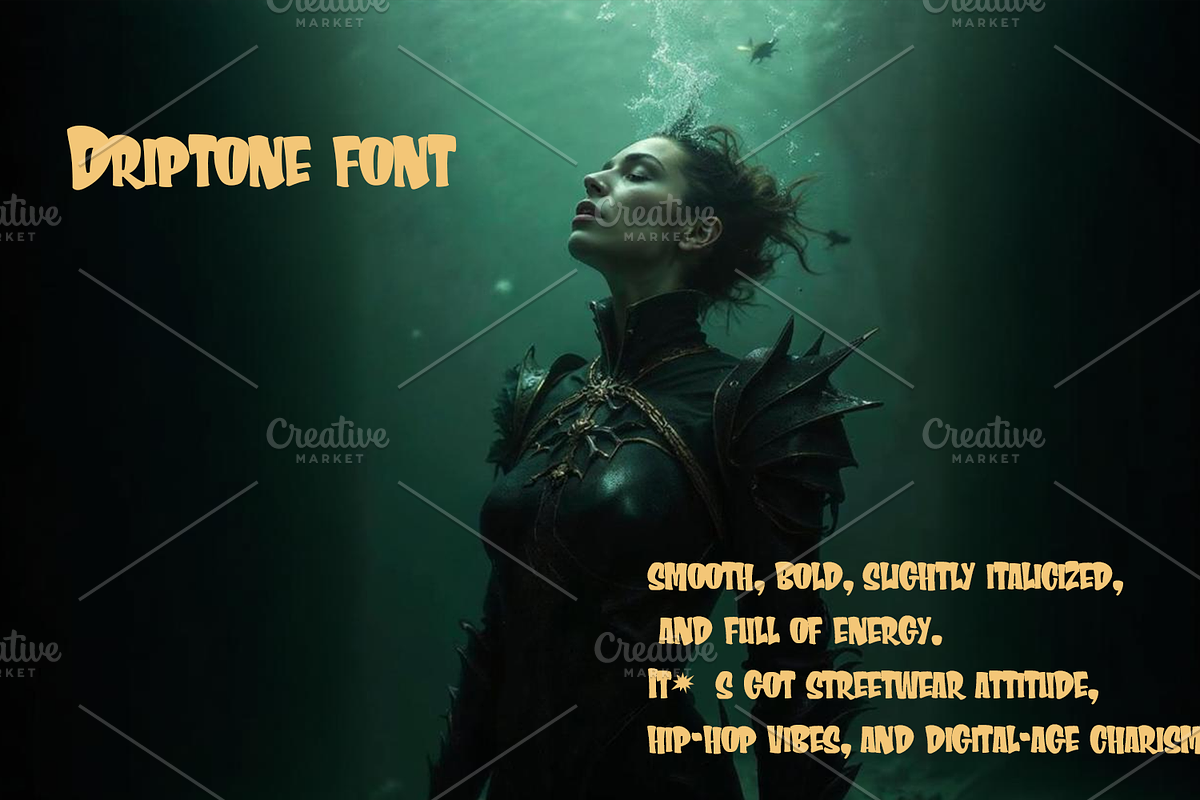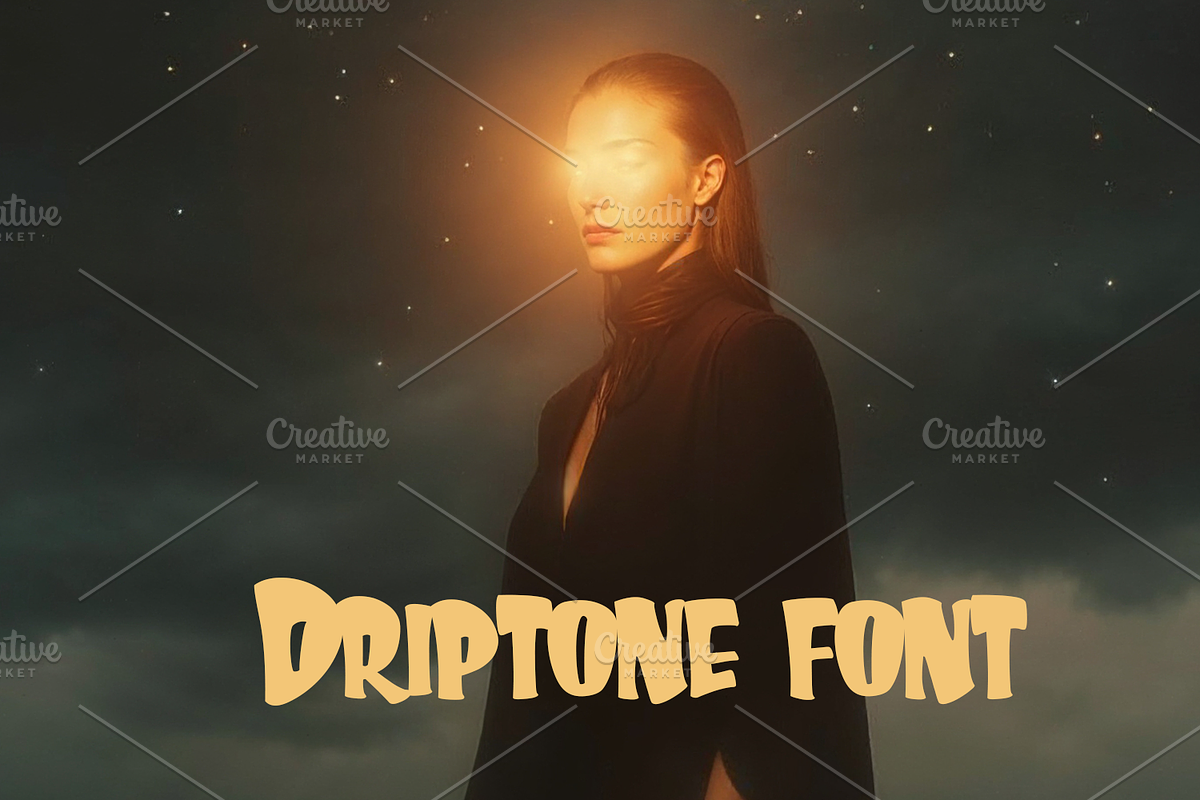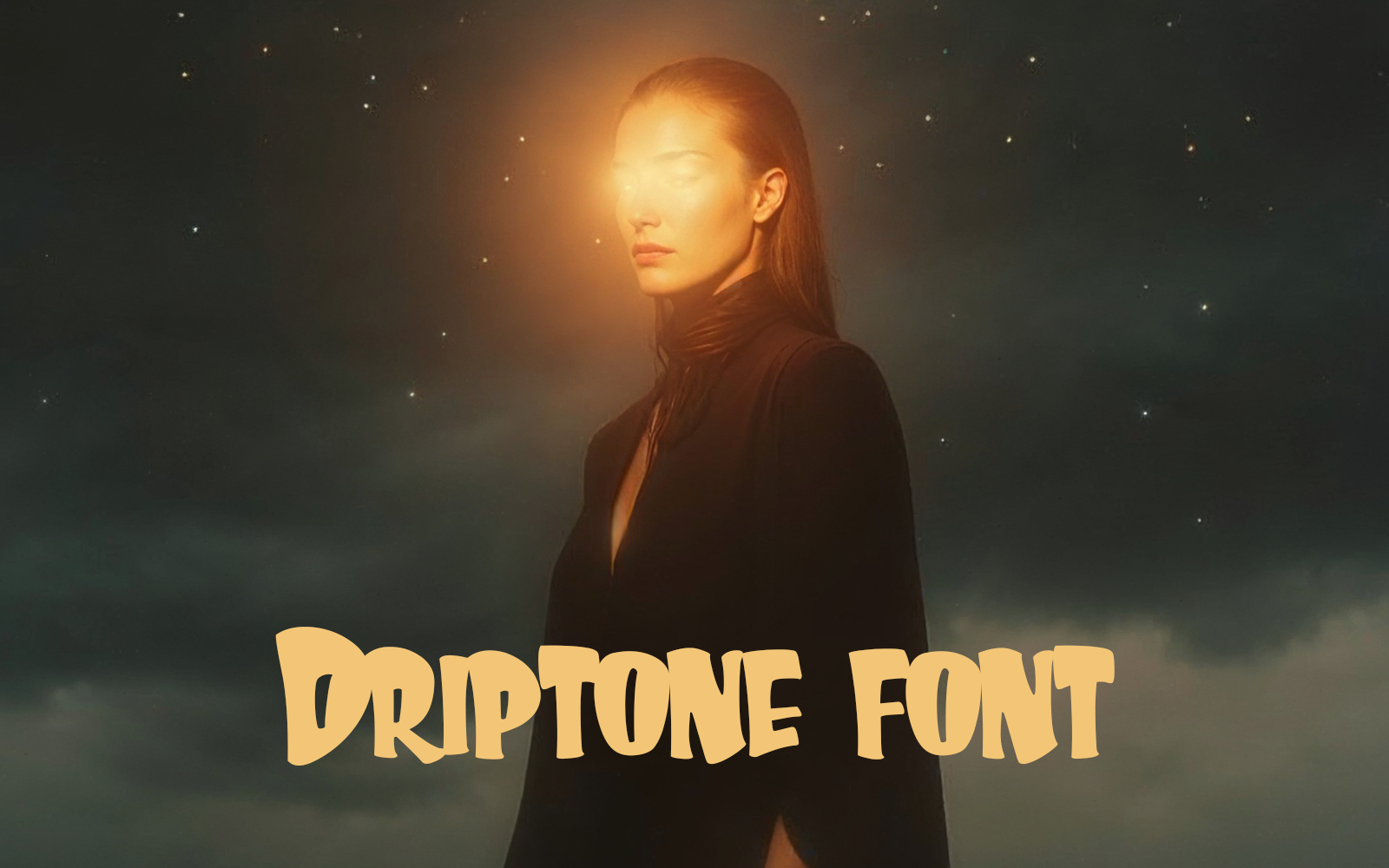
Turn the volume up with Driptone—a typeface with street in its soul and rhythm in its flow.
Slick curves, bold presence, and a digital drip made for creators on the move.
From merch drops to mixtape covers, it’s the font that flexes hard.
Where attitude meets aesthetic, Driptone speaks your style loud and clear.
Driptone: Born on the coast. Built to break the feed.